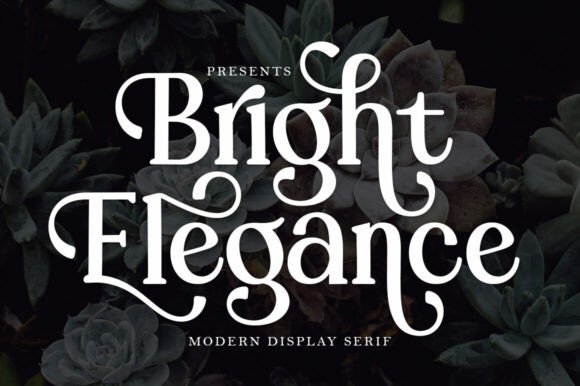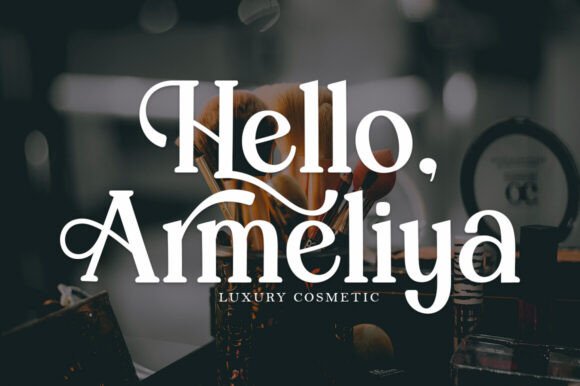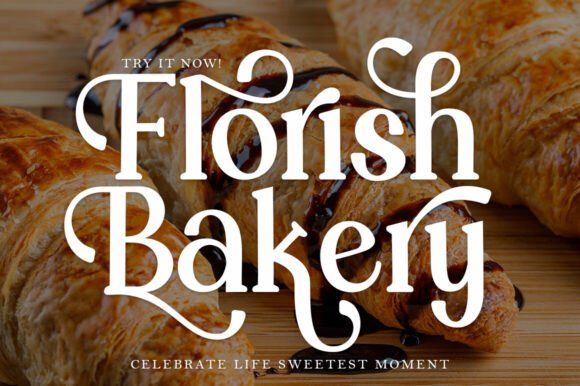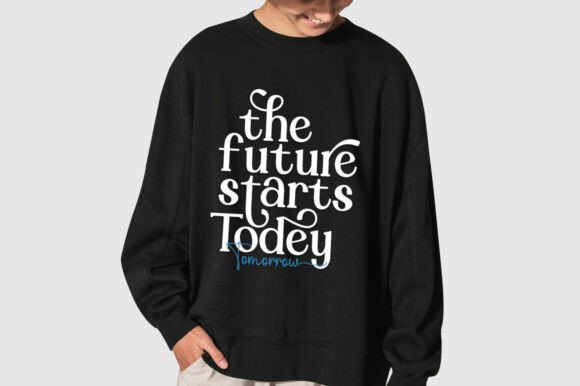
Bright Elegance Font
About the Bright Elegance Font
Elevate your designs with Bright Elegance Font, a font that combines sophistication with readability. Bright Elegance is a luxurious retro display serif font available in regular and italic styles. It features elegant alternates and stylish ligatures, making it perfect for branding, editorial designs, social media, packaging, and more. Its timeless charm adds sophistication to any project.
Bright Elegance thrives in headline applications, short-form text within logos and branding materials, and upscale packaging designs. Its refined serifs and elegant alternates lend themselves well to projects requiring a touch of vintage glamour. However, its decorative nature makes it less suitable for body copy or UI elements where readability is paramount. Extended use in long paragraphs would significantly hinder legibility.
This font’s personality is sophisticated and slightly nostalgic. It projects an air of timeless elegance, perfect for brands aiming for a luxurious or classic aesthetic, such as high-end fashion, boutique hotels, or premium food products.
Pairing Bright Elegance with a clean sans-serif like Open Sans for body text creates a balanced and visually appealing contrast. For a more playful approach, consider pairing it with a script font like Great Vibes for added personality. Alternatively, a geometric sans-serif would provide a modern counterpoint to its retro charm.
Bright Elegance Font Example